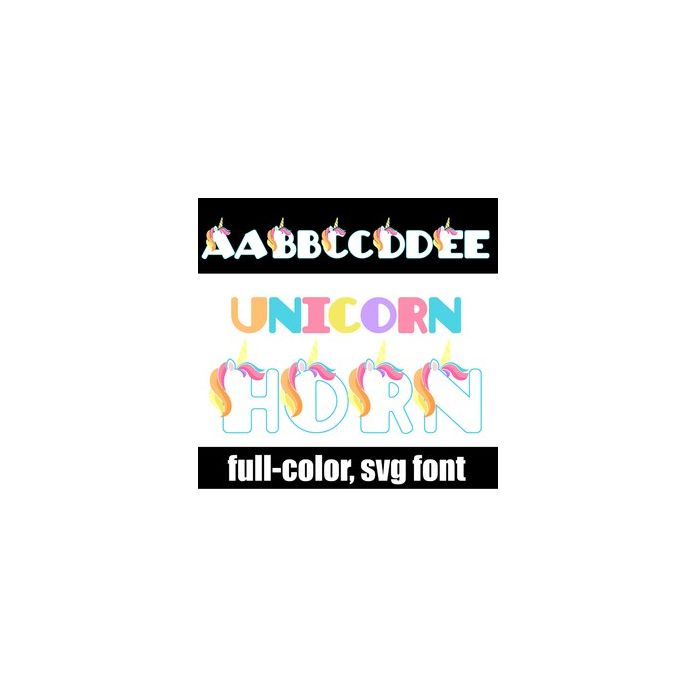
This full-color font features white lettering with rainbow unicorn hair and horns. There is an alt case w/ additional rainbow colors you can access through your system or Silhouette's glyph map.